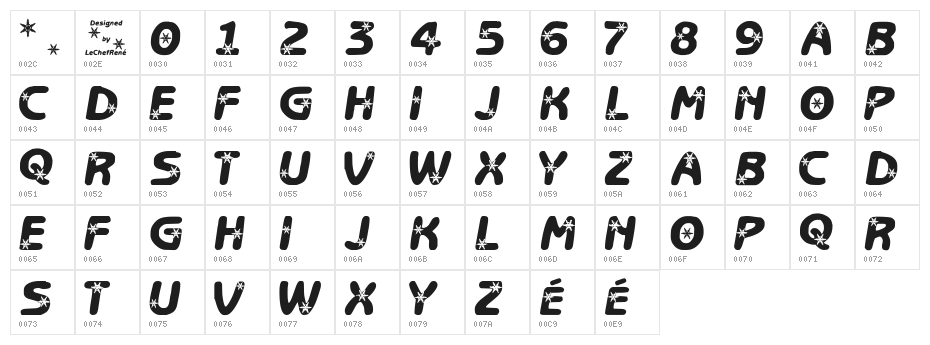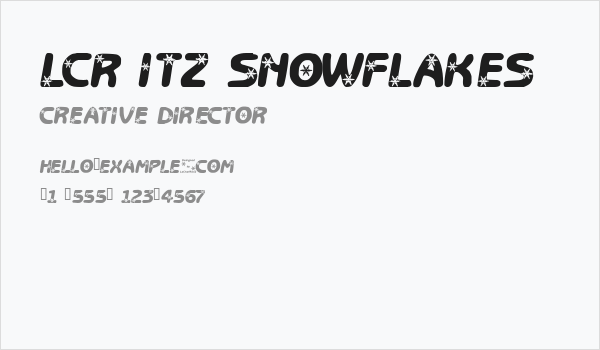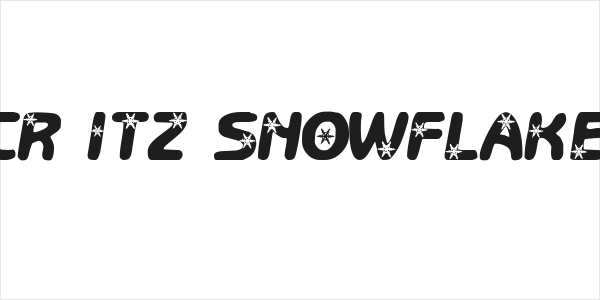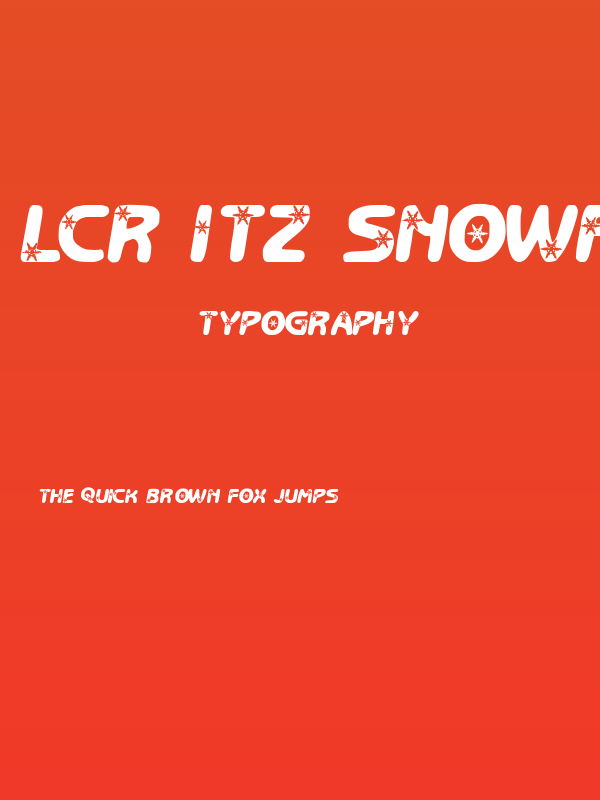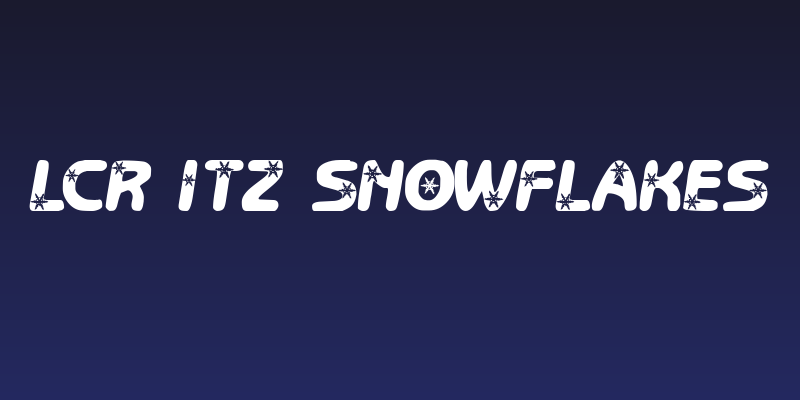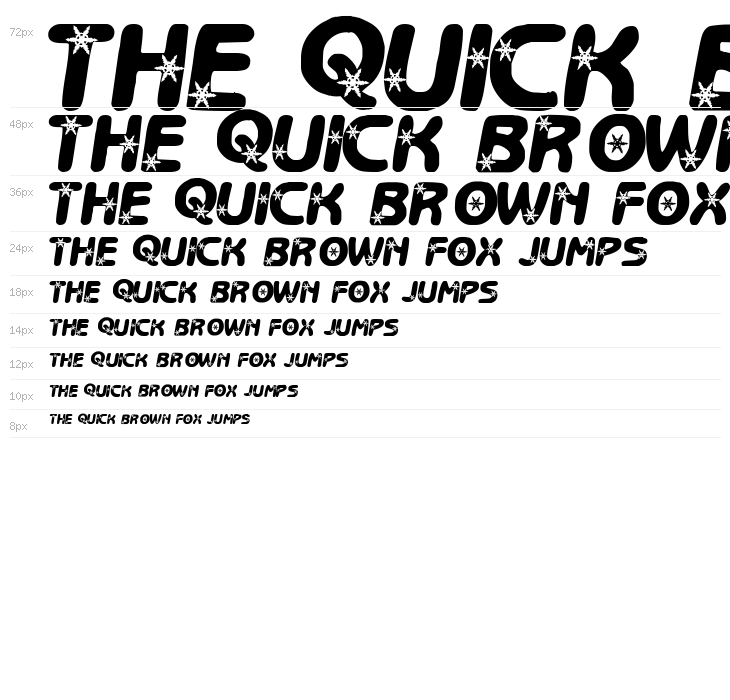
LCR Itz Snowflakes Font
LCR Itz Snowflakes Description
This playful and decorative font features bold, rounded characters adorned with snowflake motifs, adding a whimsical and festive touch. The letters are well-defined, with a consistent thickness that gives them a strong presence. The snowflakes are integrated into the design, making each character unique and visually interesting. This font is perfect for creating a winter-themed or holiday atmosphere, as it captures the essence of snow and celebration. The overall style is both fun and eye-catching, making it suitable for various creative projects.
| Proposed Projects | Ideal for holiday cards, winter event invitations, festive posters, and seasonal branding. |